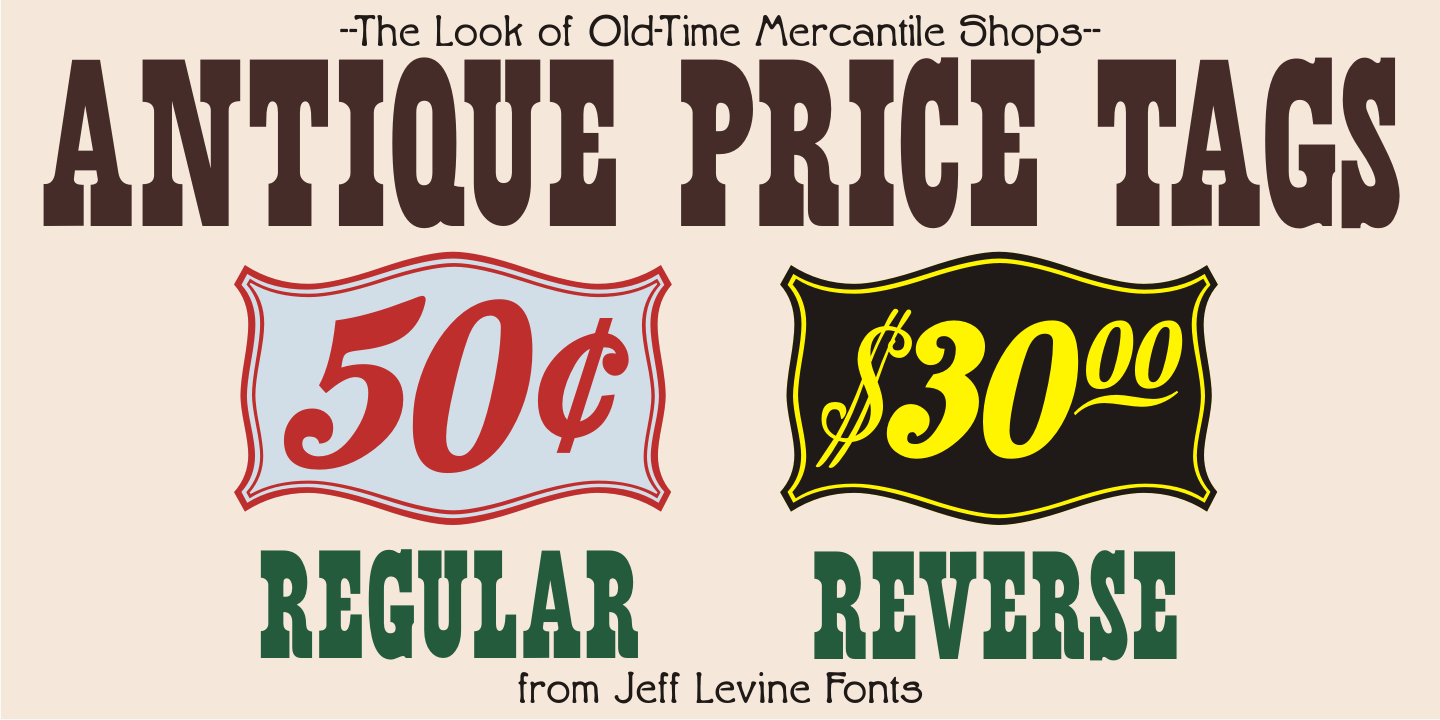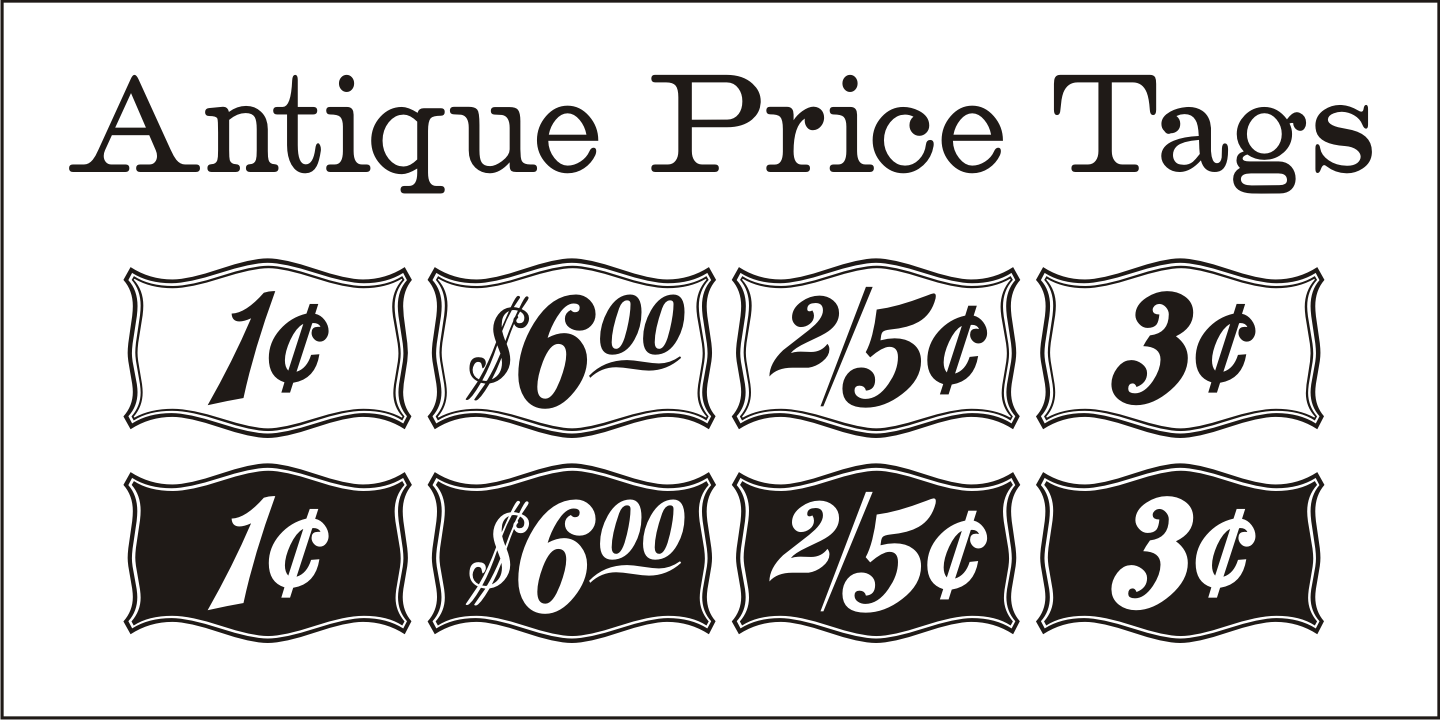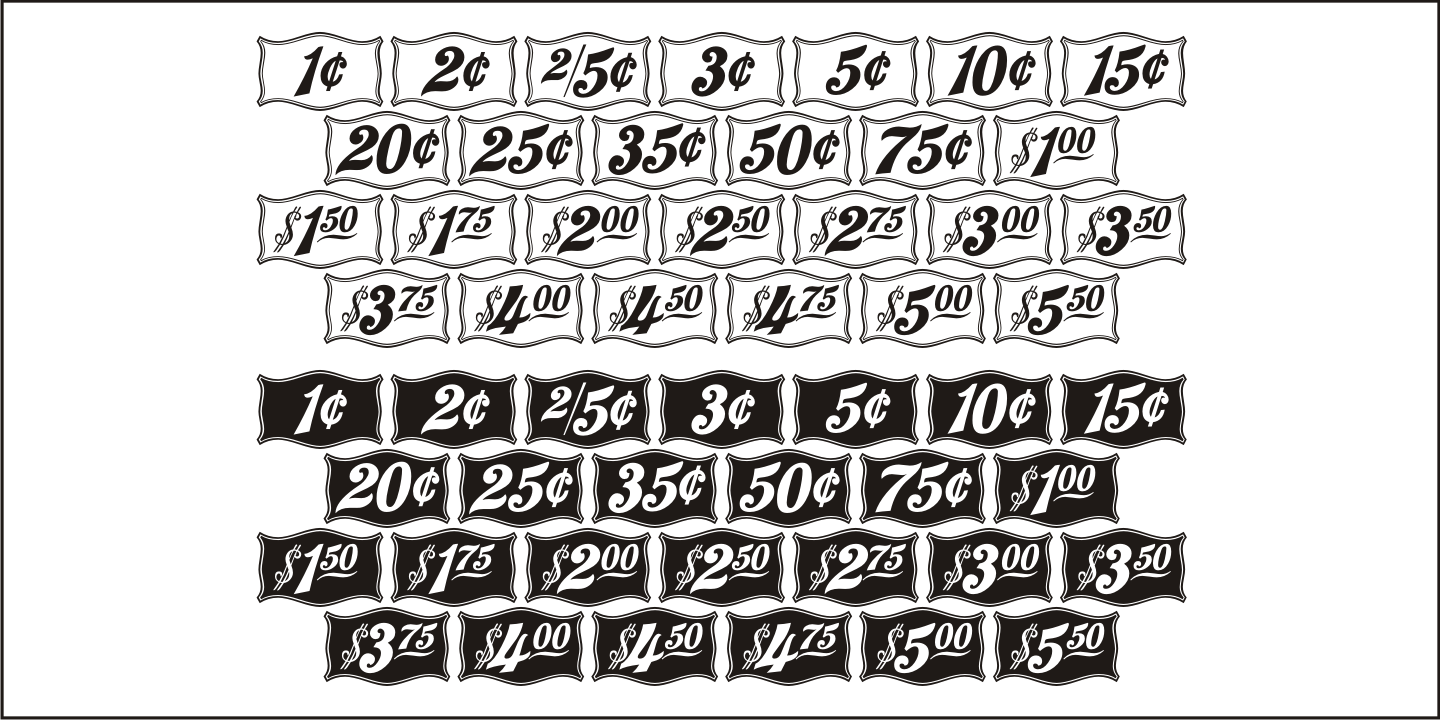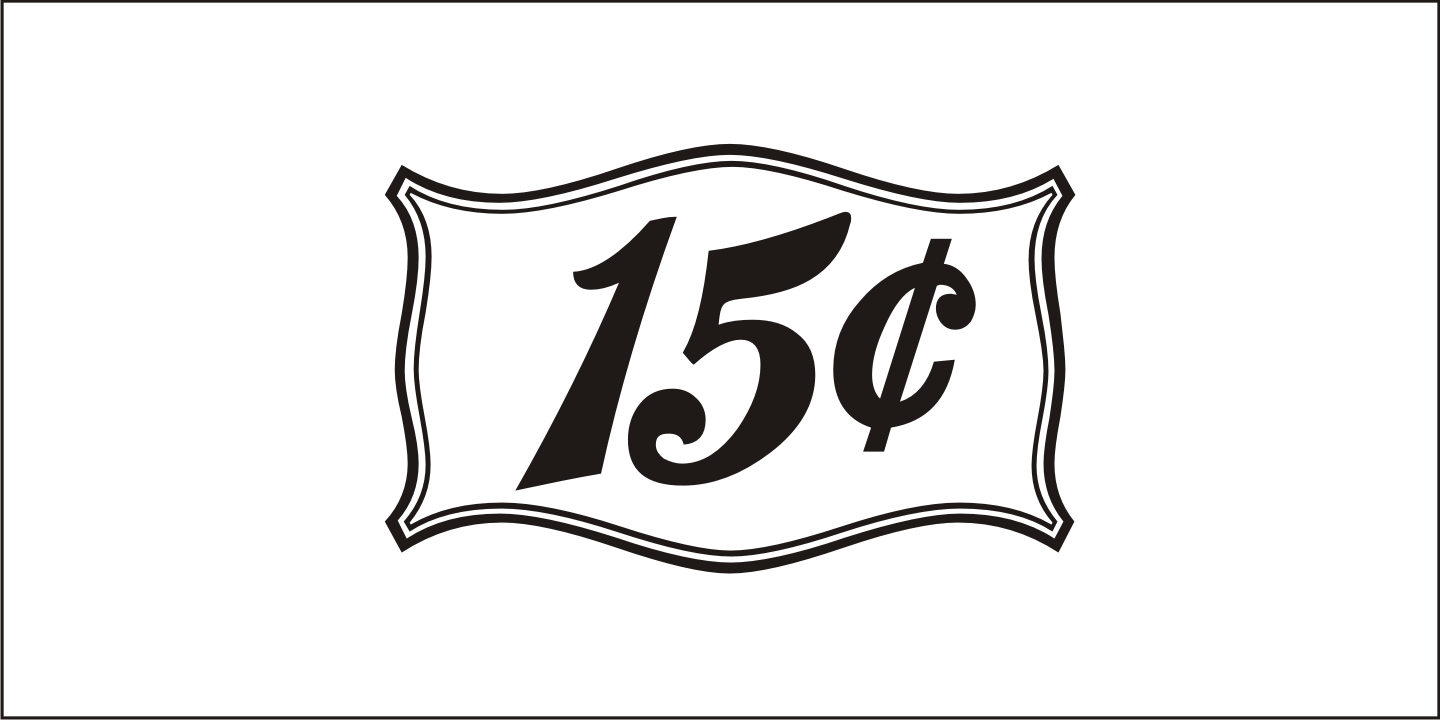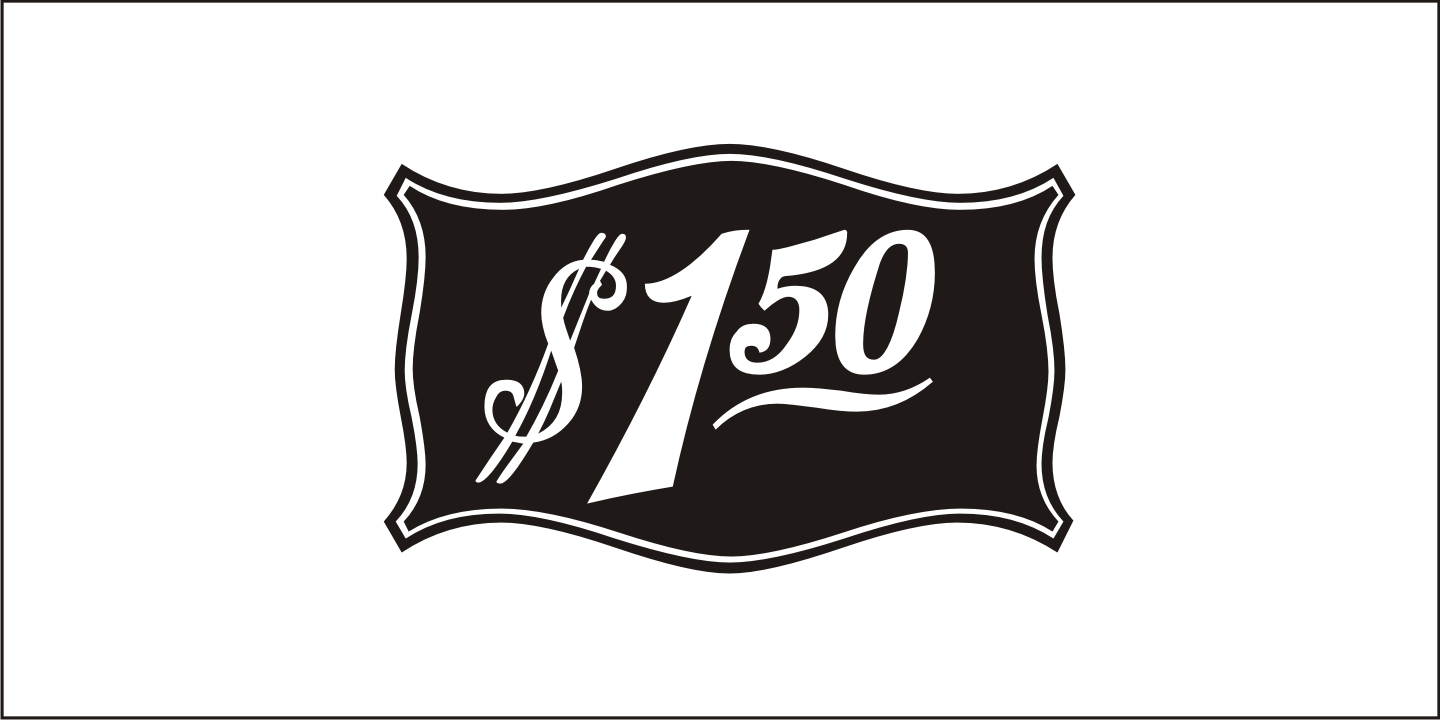
Antique Price Tags
Antique Price Tags JNL is a collection of fifty-two decorative price cards recreating the look and charm of turn-of-the-last-century mercantile shops.
The design is a hybrid of the decorative frame and dollar sign of antique price cards spotted in an online auction, and prices modeled from some gummed numerals once made by the Tablet and Ticket Company of Chicago under the brand name 'Willson's Gummed Letters” (after the company's founder).
Also included in the font are blank price cards with only a dollar sign, a cents sign or an empty frame, as well as a solid black frame for creating a backfill color.
A companion font is available with the numbers in white on black panel backgrounds.
Antique Price Tags by Jeff Levine Fonts